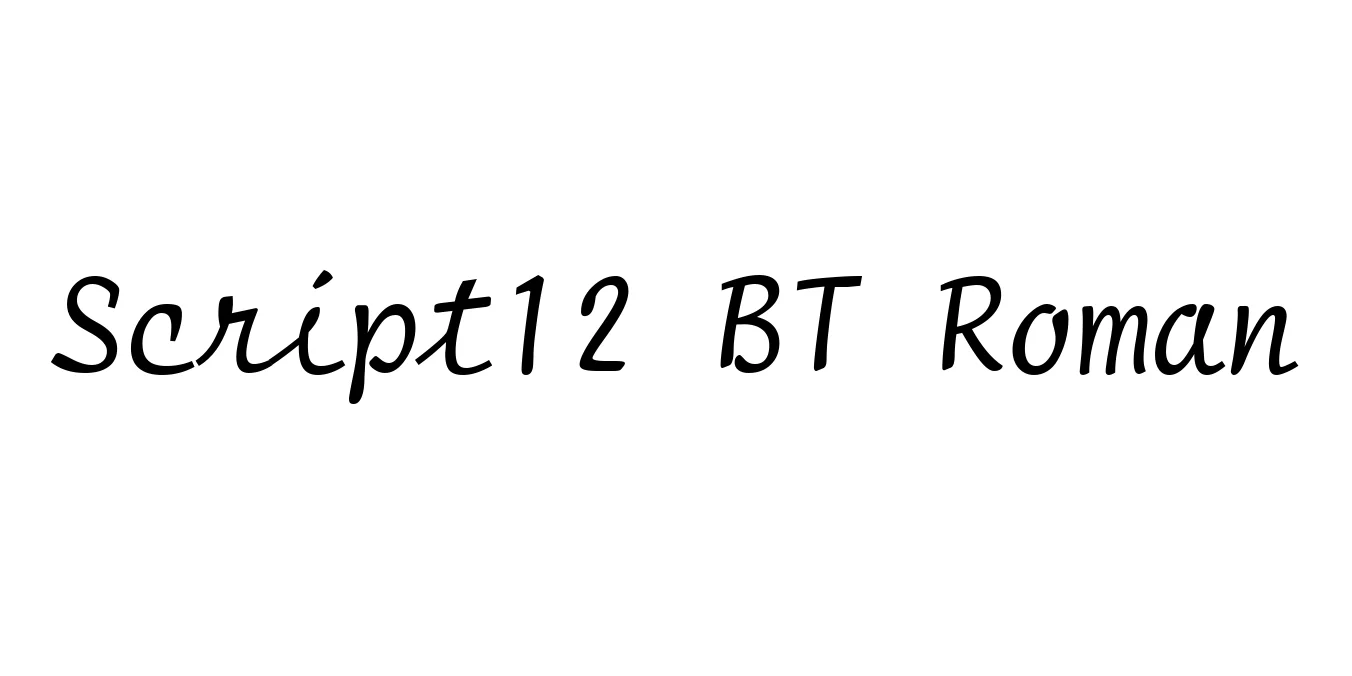
Script12 BT Roman
Designed by Bitstream Inc.
Script12 BT Roman is a refined calligraphic typeface developed by Bitstream Inc., a prominent digital type foundry known for its high-quality library. This font captures the essence of traditional hand-penned script, featuring fluid, slanted characters that flow together with a natural rhythm. The design emphasizes elegance and human warmth, making it a staple for projects that require a sophisticated, personal touch rather than the rigidity of standard serif or sans-serif fonts.
Historically, the BT series of fonts from Bitstream played a significant role in the democratization of digital typography during the early days of desktop publishing. Script12 BT Roman, in particular, has become a favorite for formal communication, ranging from wedding stationery to official certificates. Its Roman weight provides a balanced stroke width that maintains legibility even at smaller sizes, while its timeless aesthetic ensures it remains relevant for both vintage-inspired and modern luxury branding.
Script12 BT Roman Best Uses
Ideal for invitations, RSVP cards, and seating charts to convey elegance.
Perfect for adding a professional and sophisticated touch to awards and diplomas.
Suited for luxury brands or boutiques looking for a hand-crafted identity.
Conveys a personal and heartfelt tone for holiday or anniversary messages.